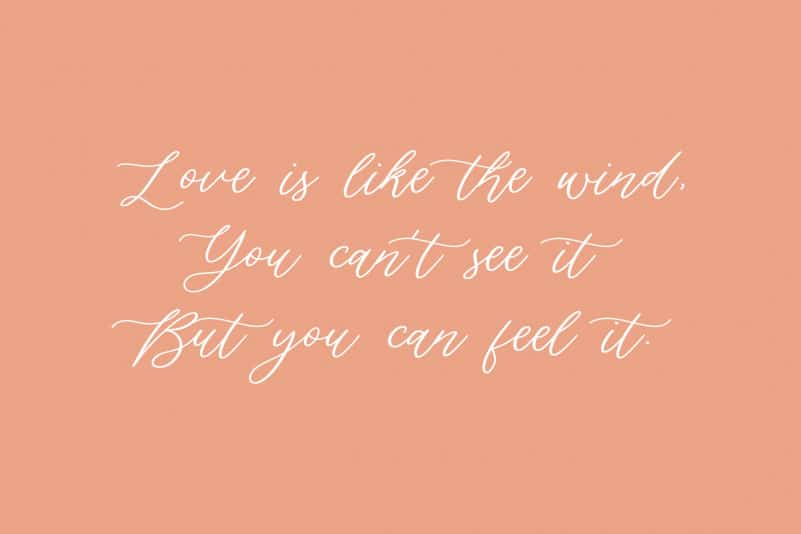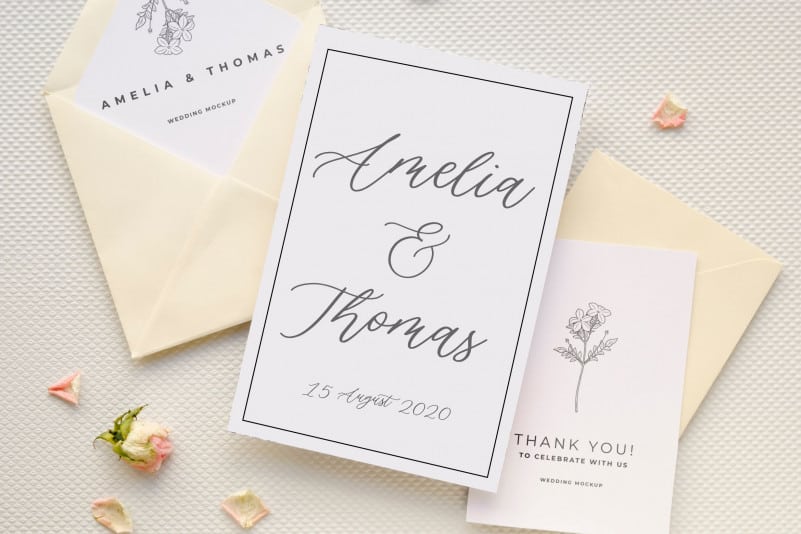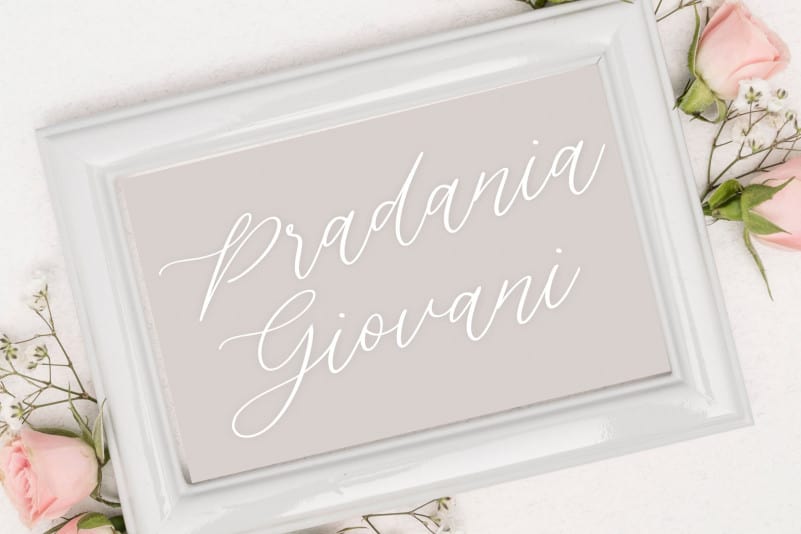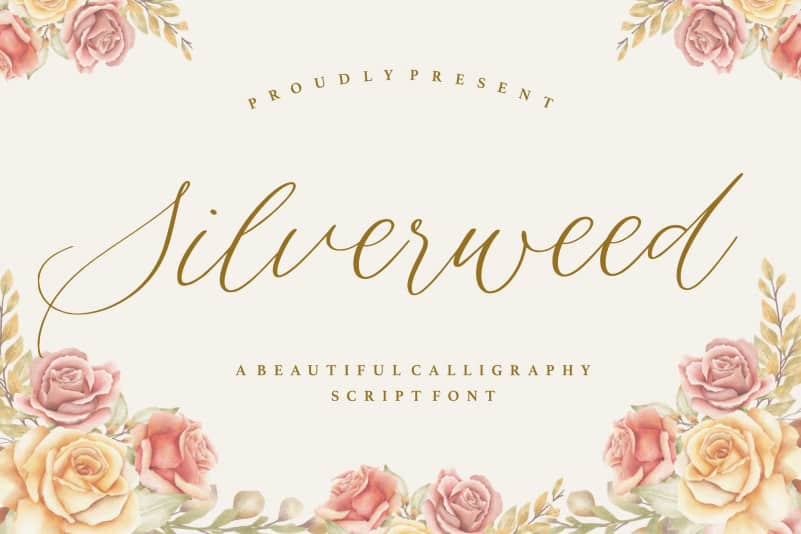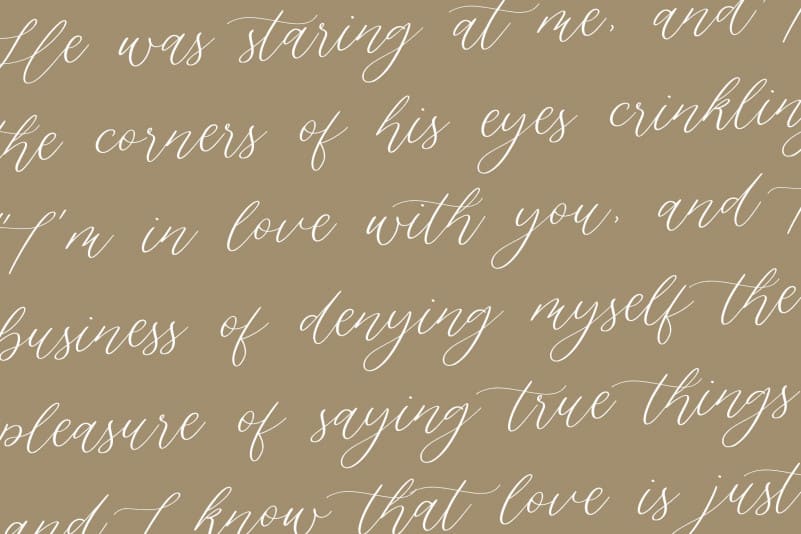
Silverweed Beautiful Calligraphy Script Font
Proudly Present, Silverweed Beautiful Calligraphy Script Font.
Silverweed is a Beautiful Calligraphy Script Font.
Silverweed is perfect for product packaging, branding project, megazine, social media, wedding, or just used to express words above the background.